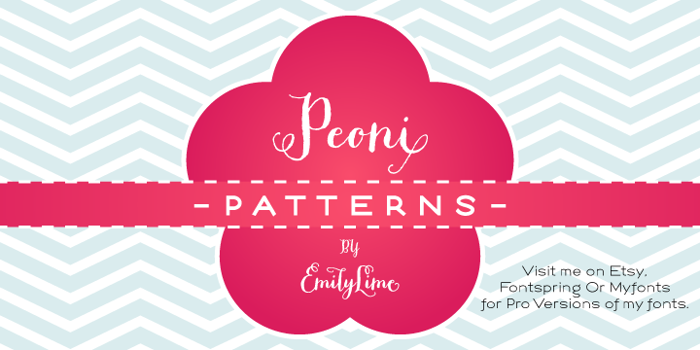
Peoni Patterns Font
Peoni Patterns is a fun compliment to Peoni Pro (my new hand-calligraphy script).
AMAZING! a must-have for textures on words & bgs(:
ideal dingbats for my moms boutique!*lol n very thank you*
Thank you so much for this gorge ous font - perfect for my textile project. You're very inventive!
Luv the patterns, no only have they given me a smile but also some inspiration for some Textiles Work... COOL!